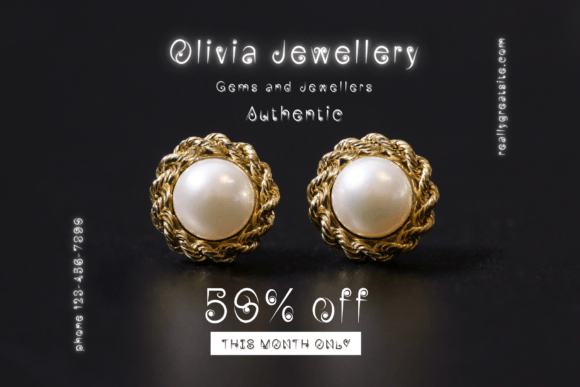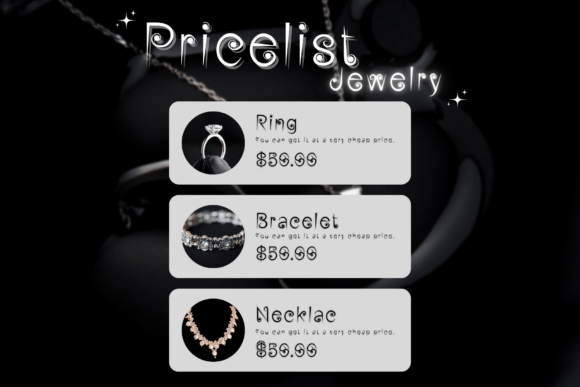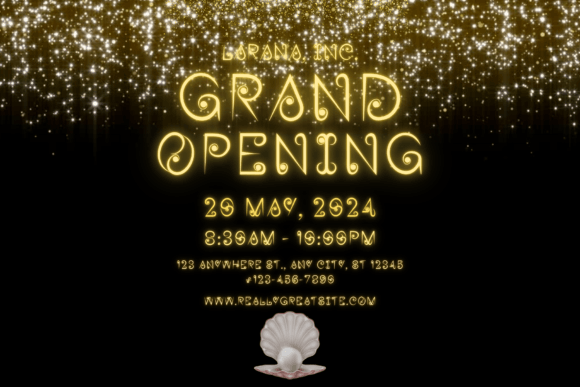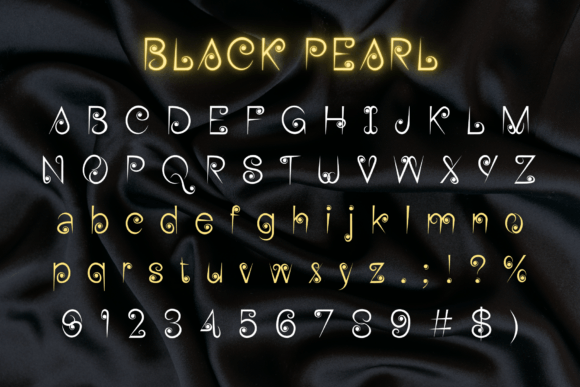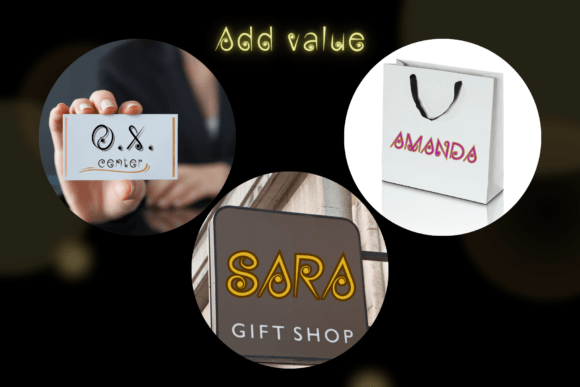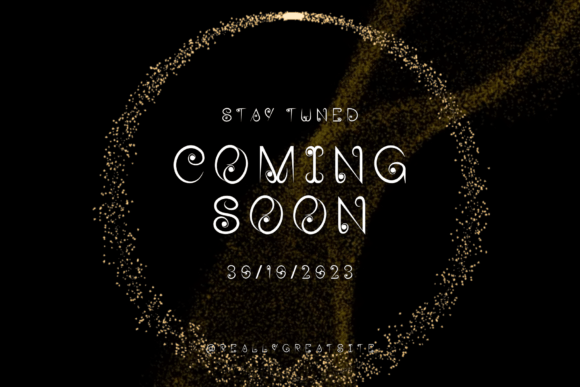
Discover the Enchanting Black Pearl Font: A Gem for Creative Works
The world of typography is vast and wondrous, offering a multitude of fonts to suit every creative need. Among these treasures is the Black Pearl Font, a captivating typeface that has garnered attention for its unique blend of elegance and playfulness. As part of the Gems collection, Black Pearl is an adapted version of the author’s The Pearl font, reimagined to infuse it with a more whimsical and festive vibe. This makes it an ideal choice for designers and crafters looking to add a touch of fantasy and flair to their projects.
The Origins of Black Pearl Font
The Black Pearl Font is a derivative of The Pearl font, a classic typeface that has been a staple in the world of typography. Recognizing the potential for something more, the author of Black Pearl took The Pearl and transformed it into a font that not only retains the essence of its predecessor but also introduces a fresh, playful dimension. This adaptation process involved tweaking the font’s design elements to give it a more distinctive and enchanting appearance.
Characteristics of Black Pearl Font
So, what sets Black Pearl apart from other fonts in the Gems collection? Here are a few key characteristics:
- Unique Design: Black Pearl boasts a one-of-a-kind design that sets it apart from more traditional fonts. Its letters are crafted with a sense of whimsy, making it perfect for projects that require a touch of magic.
- Playful Yet Elegant: Despite its playful nature, Black Pearl maintains an air of sophistication. This balance makes it versatile enough for use in a variety of creative works, from festive invitations to fantasy novels.
- Festive Appeal: The font’s design is particularly well-suited for festive and fantasy-themed projects. Whether you’re working on a Halloween invitation, a Christmas card, or a fantasy book cover, Black Pearl can add that extra layer of enchantment.
Uses of Black Pearl Font
The versatility of Black Pearl Font makes it a valuable asset for designers and crafters across various projects. Here are some popular uses:
- Festive Designs: From holiday cards to themed party invitations, Black Pearl can add a festive touch that’s sure to captivate.
- Fantasy and Fiction: For authors and publishers of fantasy and fiction, Black Pearl can enhance book covers, author websites, and promotional materials with its magical appeal.
- Branding and Logos: Businesses looking for a unique brand voice can use Black Pearl to stand out. It’s particularly effective for brands in the entertainment, arts, and crafts sectors.
- DIY Projects: Crafters and DIY enthusiasts can use Black Pearl in their handmade projects, such as custom signs, banners, and personalized gifts.
Tips for Using Black Pearl Font
To make the most of Black Pearl Font, consider the following tips:
- Pair with Complementary Fonts: For maximum impact, pair Black Pearl with simpler fonts to create a balanced design.
- Experiment with Colors: Black Pearl looks stunning in metallic colors, pastels, and rich jewel tones. Don’t be afraid to experiment to find the perfect match for your project.
- Adjust Size and Weight: Depending on your project’s needs, adjusting the size and weight of Black Pearl can help you achieve the desired effect, from subtle elegance to bold statements.
The Black Pearl Font is a remarkable addition to any designer’s or crafter’s toolkit. Its unique blend of playfulness and elegance makes it an excellent choice for a wide range of creative projects. Whether you’re designing for a festival, creating a fantasy novel, or simply looking for a font that adds a touch of whimsy to your work, Black Pearl is sure to enchant. Explore the possibilities of Black Pearl Font and discover how it can elevate your creative works to new heights of imagination and appeal.